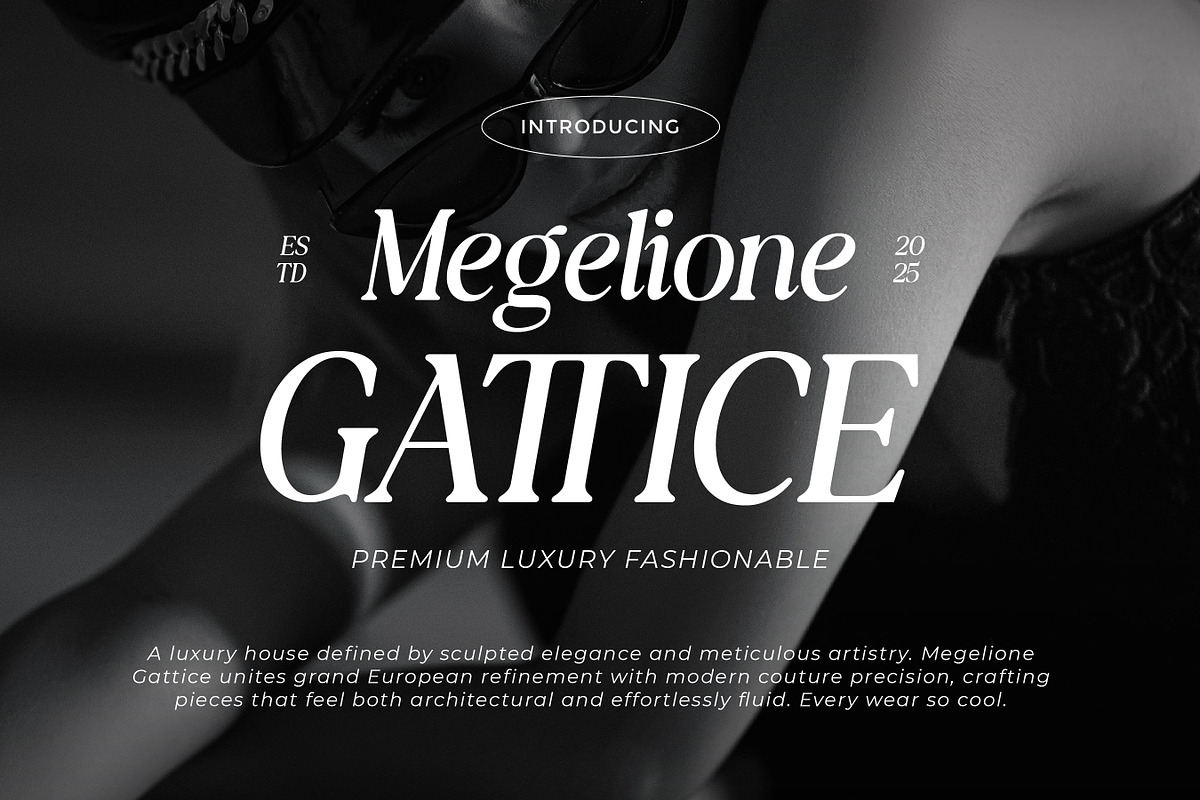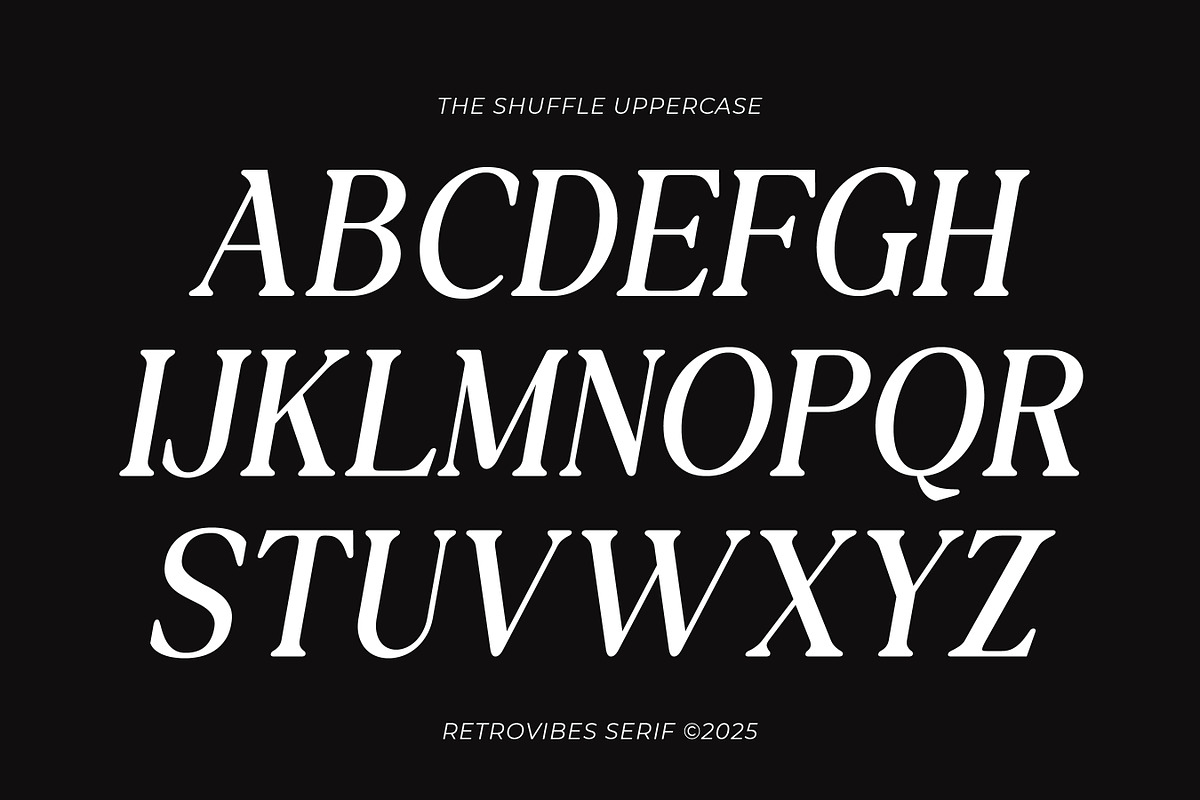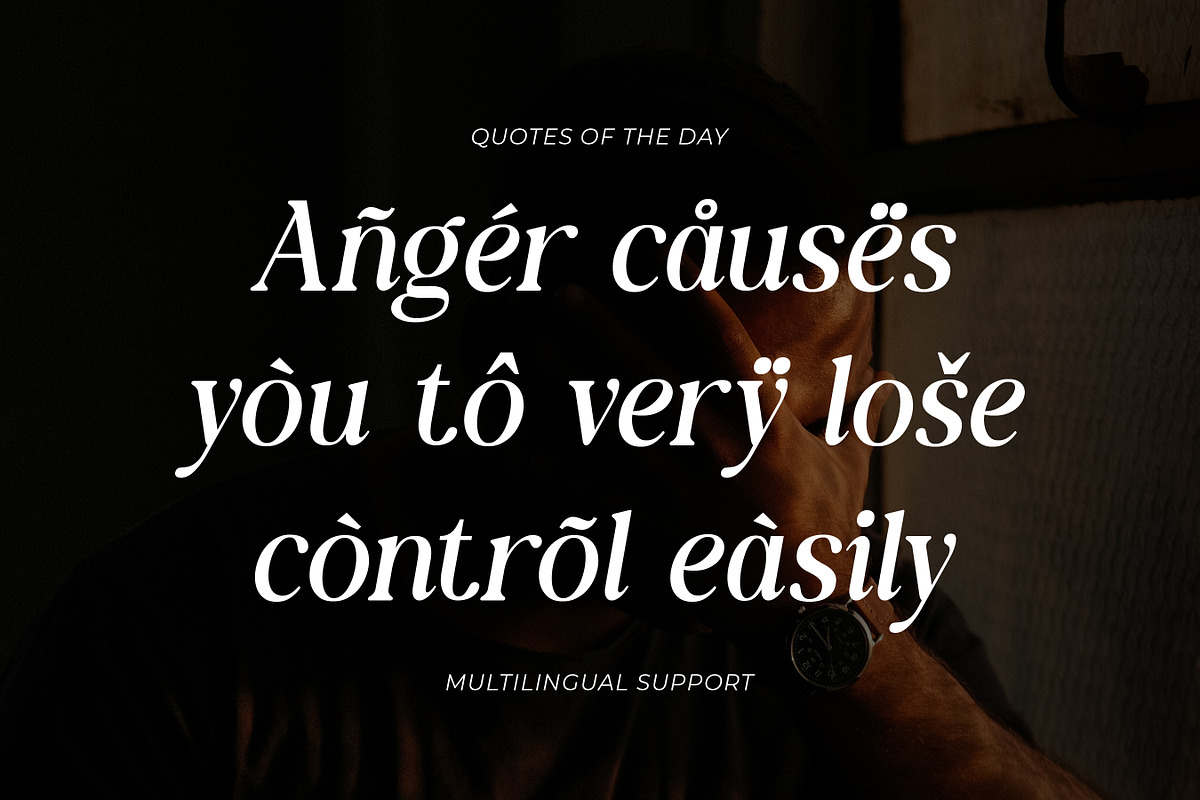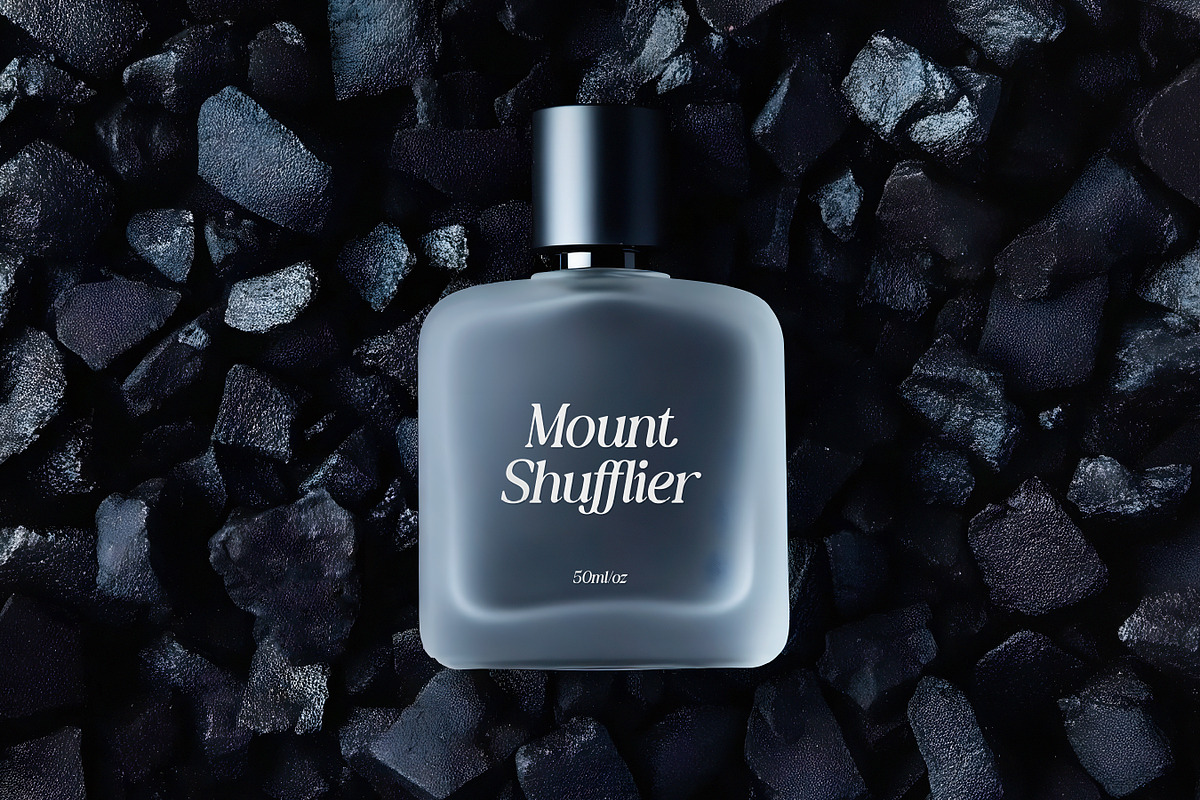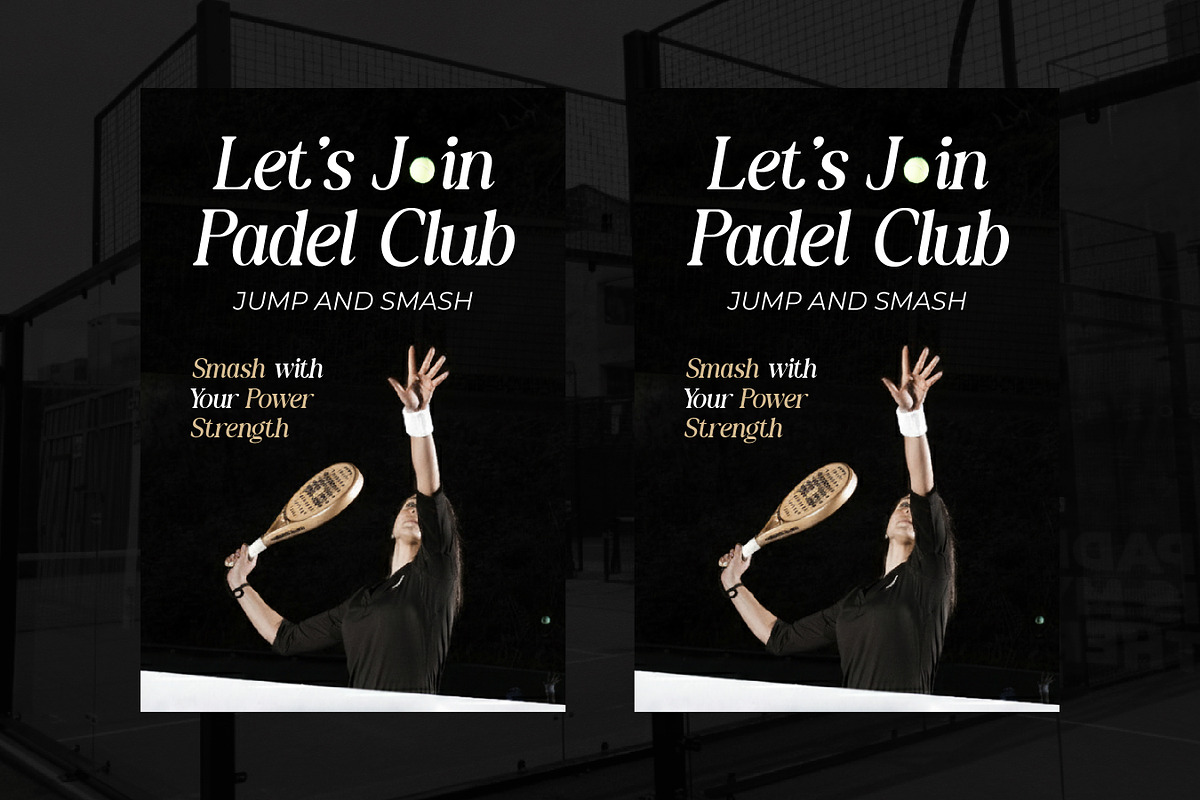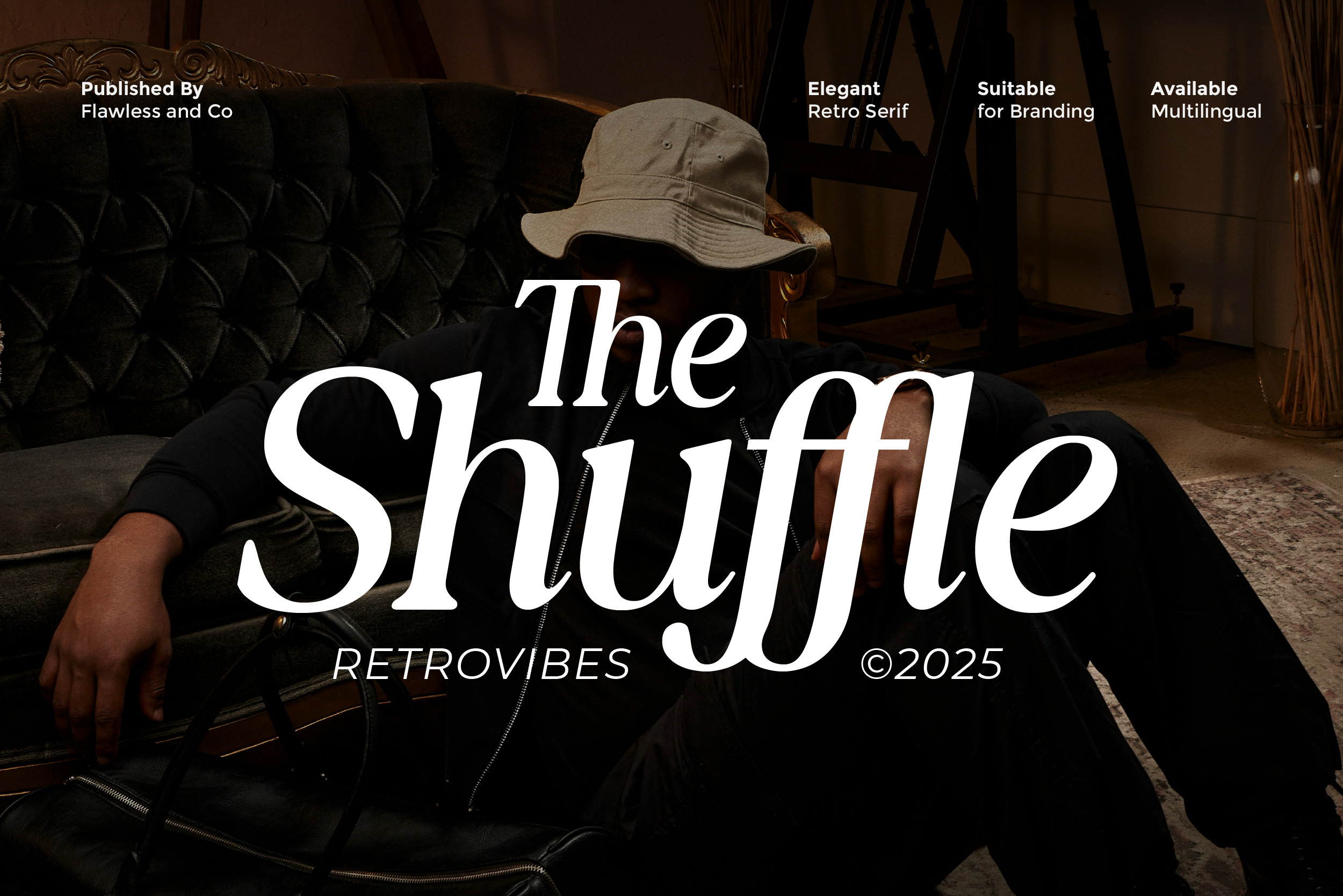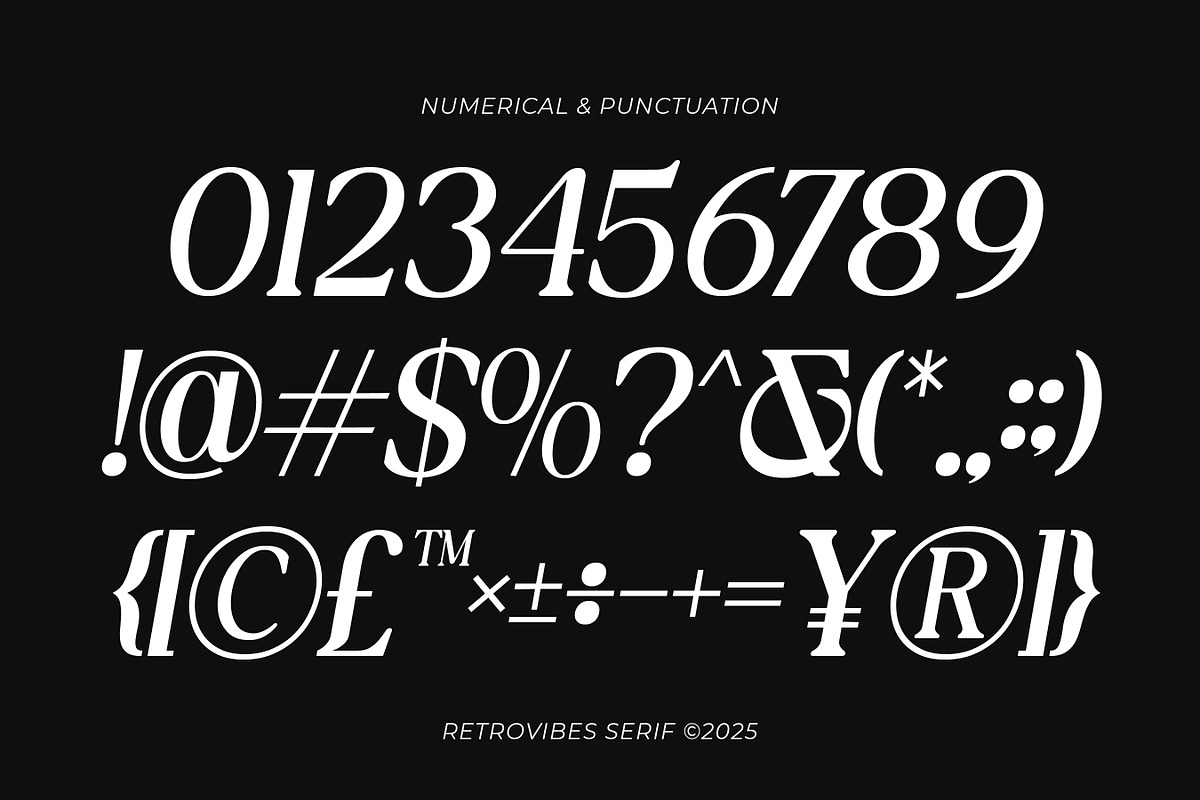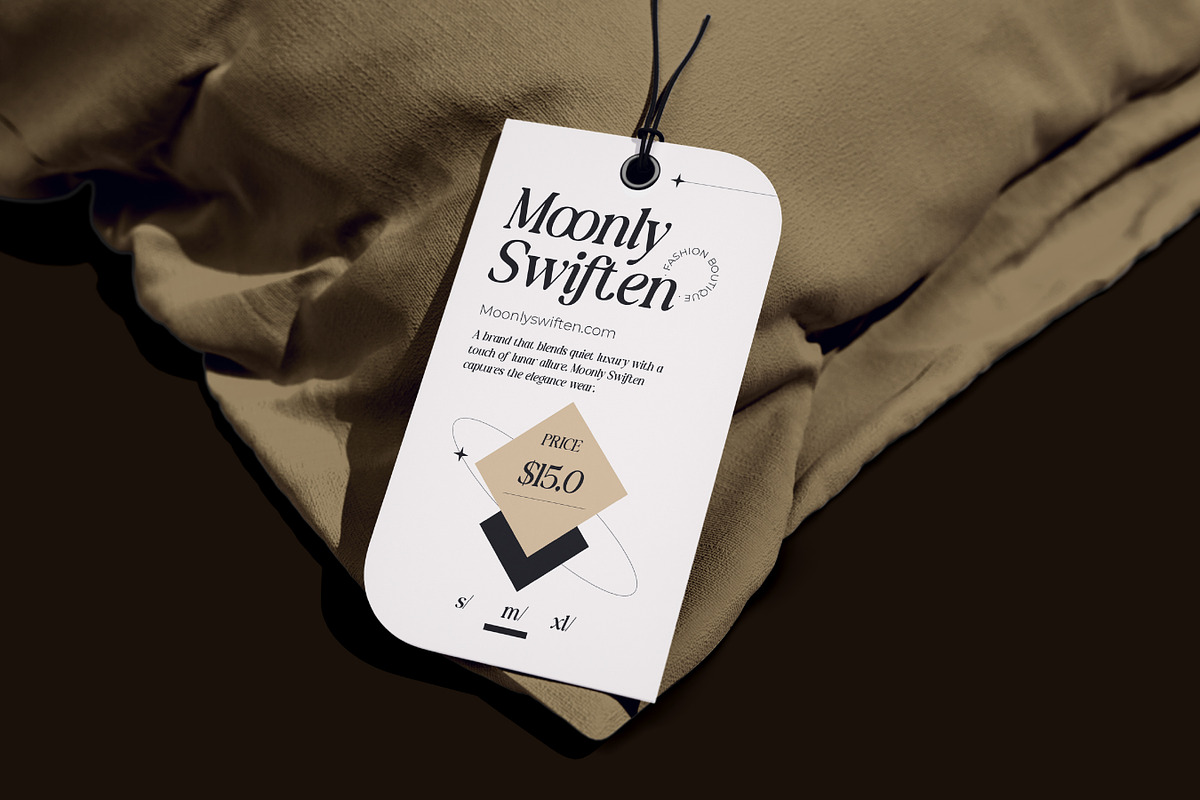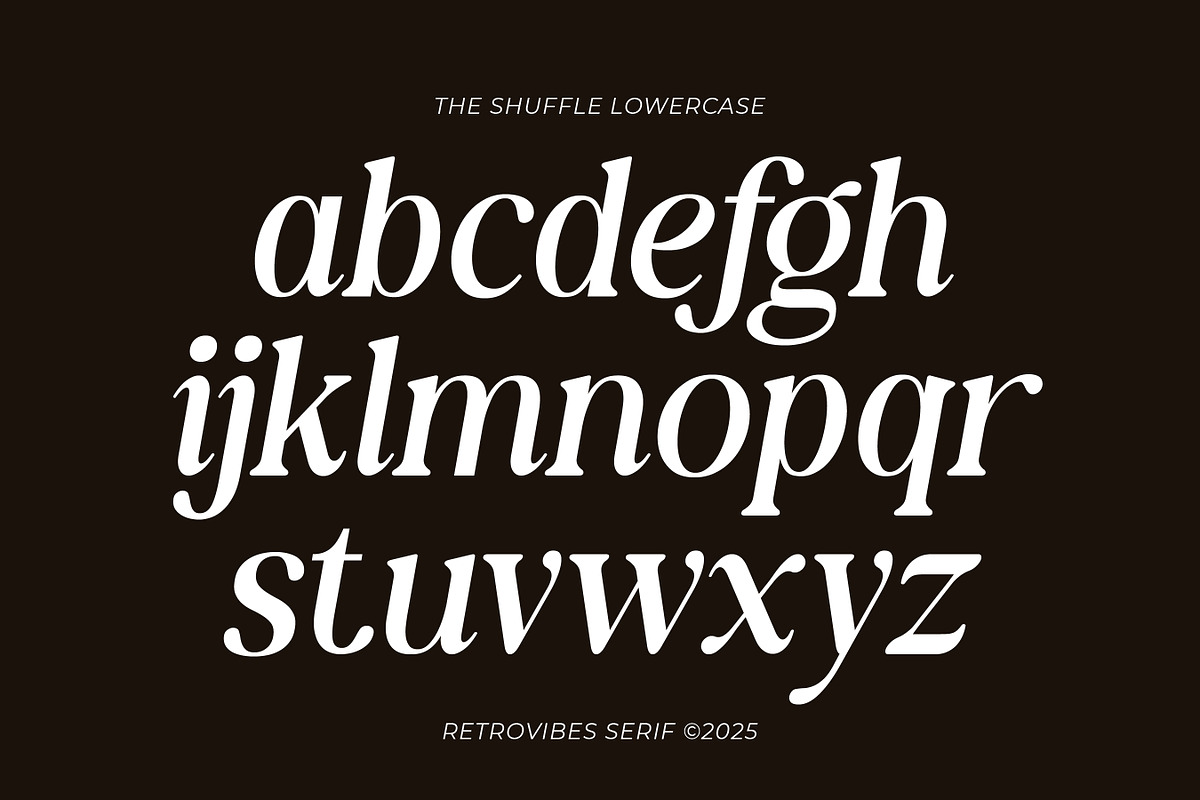
The Shuffle - Retro Serif Font
The Shuffle - Elegant Retro Serif Font
The Shuffle is a retro serif font that blends vintage charm with modern elegance, crafted to deliver timeless personality in every design. Inspired by classic editorial typography and iconic retro aesthetics, The Shuffle stands out with its soft curves, expressive serifs, and refined character shapes—making every word feel stylish, bold, and unforgettable. Perfect for designers who want to bring a touch of nostalgia with a polished contemporary twist, The Shuffle delivers cinematic vibes, sophisticated energy, and a uniquely artistic presence. Whether used for branding, logos, posters, magazine titles, or fashion visuals, this font instantly elevates your layout with a beautifully curated retro feel.
Who Should Use The Shuffle?
The Shuffle is perfect for designers and creatives who want to blend retro elegance with modern sophistication. This font is an ideal choice for:
- Brand Designers who need a stylish serif that stands out with personality and timeless charm.
- Logo Creators looking for a unique retro touch that feels premium and memorable.
- Fashion & Editorial Designers seeking a classic-yet-modern typeface for magazine titles, lookbooks, and visual branding.
- Creative Agencies that want a versatile serif for high-impact campaigns and premium identity work.
- Content Creators & Social Media Designers who want their visuals to feel polished, aesthetic, and cinematic.
- Poster & Cover Designers who love dramatic, expressive typography with retro flair.
- Luxury, Vintage, and Lifestyle Brands aiming for an elegant, character-rich typography style.
A Must-Have Font for Brand and Logo Creators and Designers
The Shuffle is an essential choice for designers who want bold, memorable, and retro-inspired branding. With its expressive serif shapes and strong visual character, this font brings a unique identity to logos, packaging, headlines, and social media designs. Perfect for creatives looking to add personality and standout charm, The Shuffle delivers a timeless retro feel while staying clean, stylish, and highly professional.
Why Choose The Shuffle for Brand and Logo Projects?
The Shuffle offers a perfect blend of retro charm and modern clarity, making it an ideal choice for standout branding. Its bold serif details create strong visual impact, ensuring your logo feels memorable, stylish, and full of character. The vintage-inspired shapes bring warmth and nostalgia, while the clean structure keeps every design readable and professional. Whether you’re crafting bold headlines, unique packaging, or identity-focused brand marks, The Shuffle delivers the perfect balance of personality and versatility—helping your projects stand out with confidence and timeless appeal.
Suitable For
- Branding & Logo Design – perfect for creating bold, memorable retro identities.
- Editorial & Magazine Layouts – brings a stylish old-school charm to titles.
- Social Media Graphics – enhances feed and promotional content with a retro vibe.
- Signage & Storefronts – gives classic visual impact for shops or events.
- Product Labels & Tags – adds strong character and retro personality